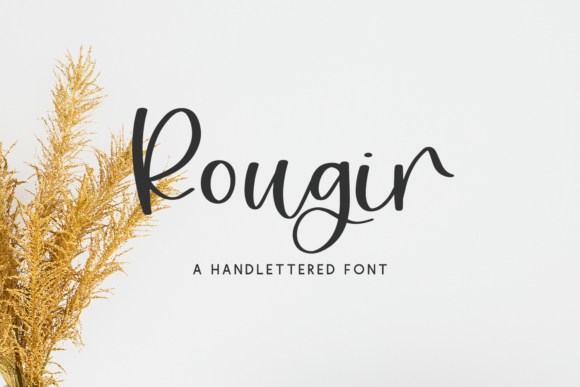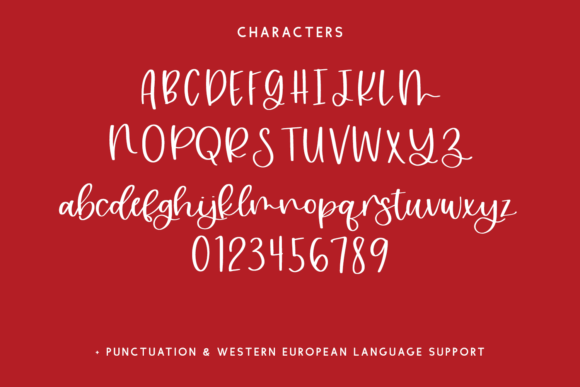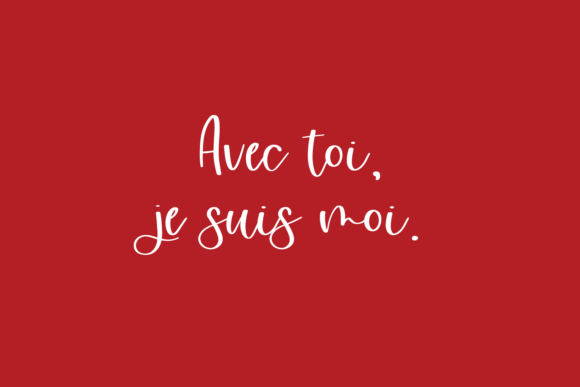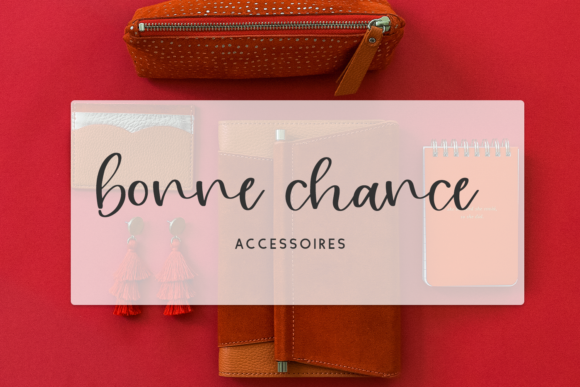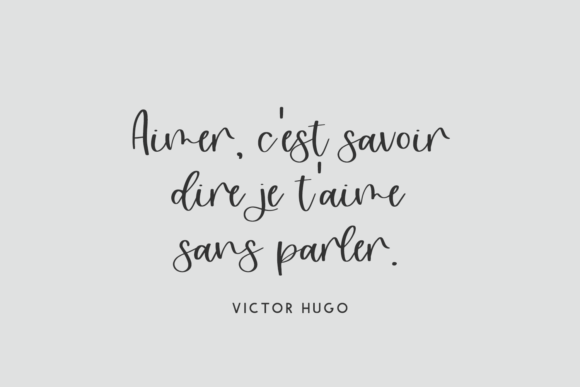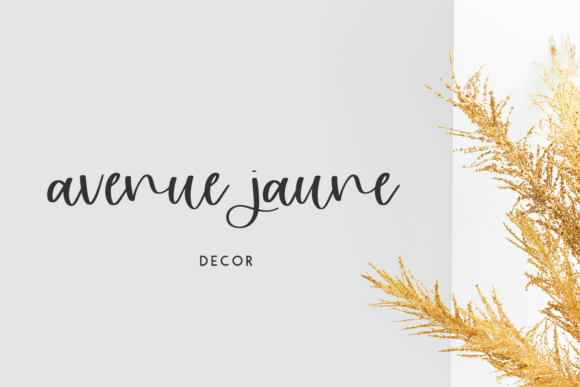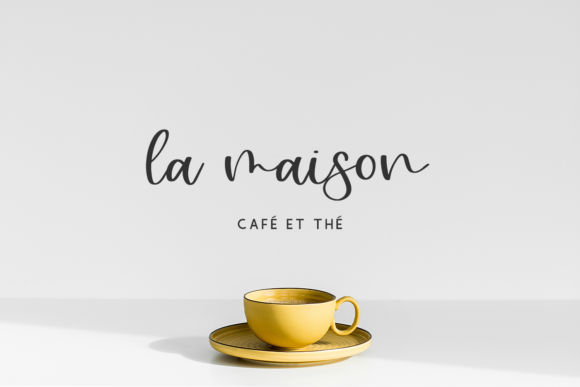
Rougir Script Font
About Rougir Script Font
Rougir Script is a hand-lettered calligraphy script with the slightest bit of bounce. Rougir Script is best for logos + branding for feminine or kid-centric brands, header elements that need a cute handwritten touch, quote graphics for social media, and crafting.